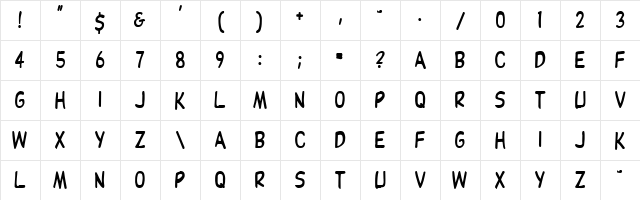
Pester 1 Regular
Design Context for Pester 1
Pester 1 is a composed and adaptable typeface that performs quietly and consistently across a wide range of design contexts.